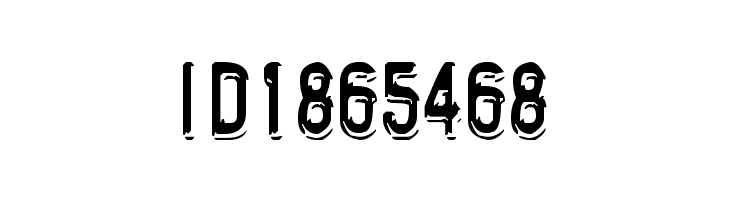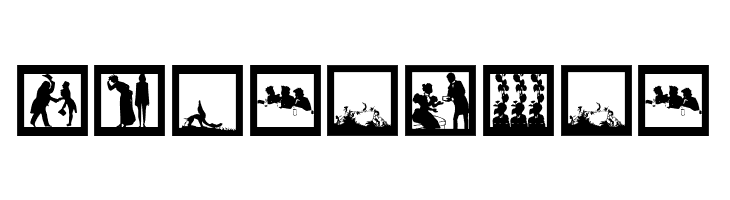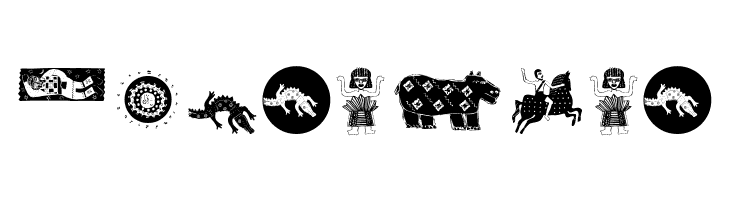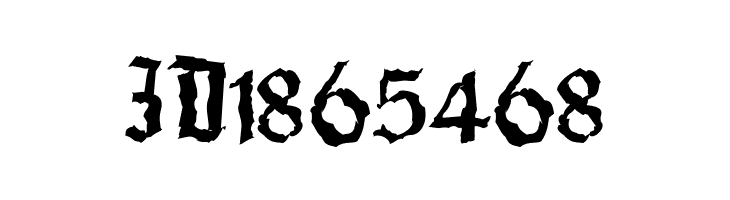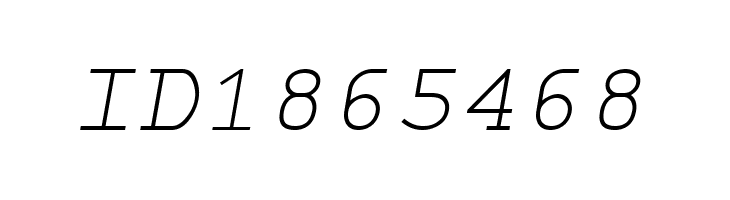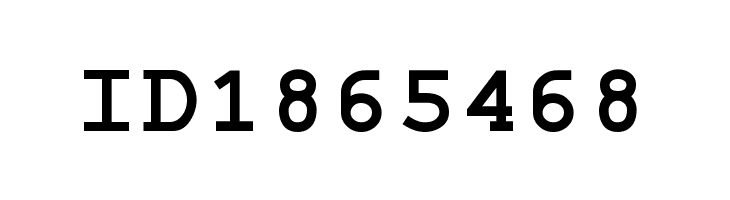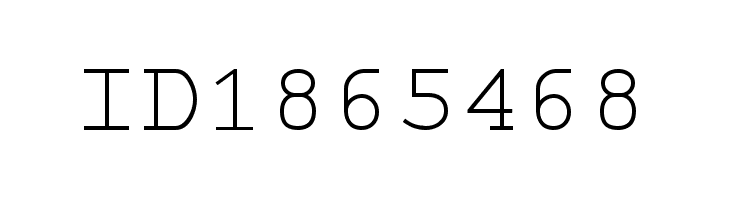
A bold, monospaced font with uniform character width and strong readability.
A dynamic monospace font with an oblique slant, offering uniformity and elegance.
A clean and organized monospaced font ideal for coding and data presentation.
Decorative font with framed silhouette illustrations for each character.
A bold, gothic-inspired Blackletter font with sharp, angular strokes.
Decorative symbol font featuring African archetypal imagery.
A bold, industrial font with a distinctive shadow effect for a three-dimensional look.
A playful, handwritten font with a casual and whimsical style.